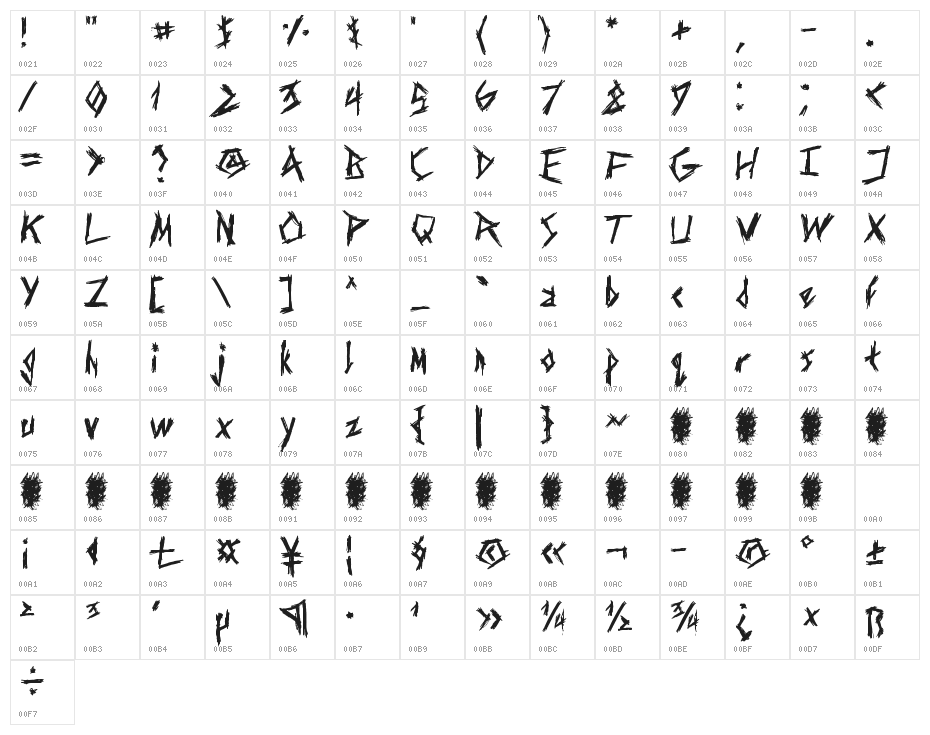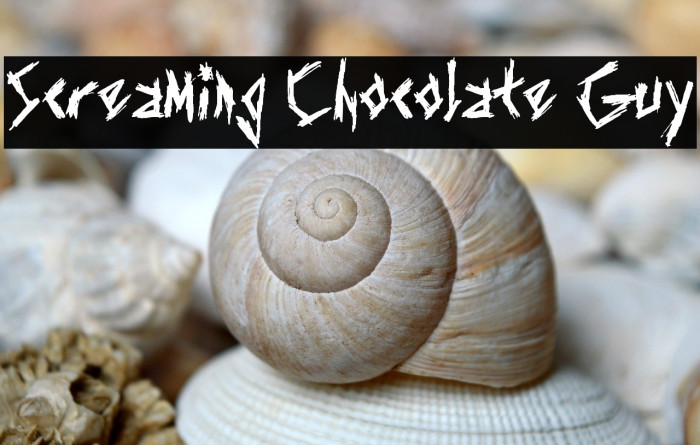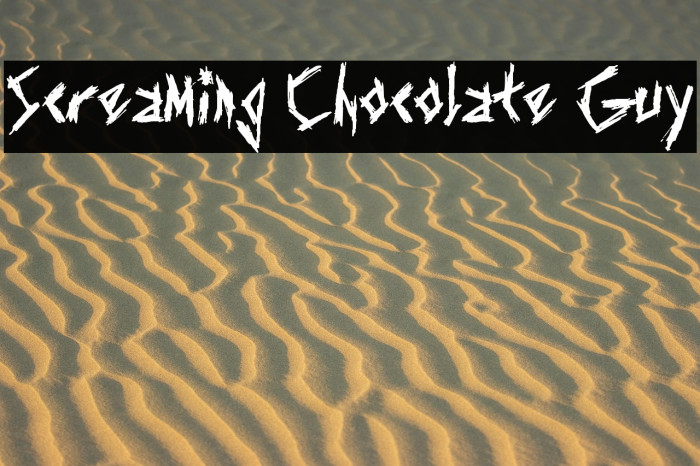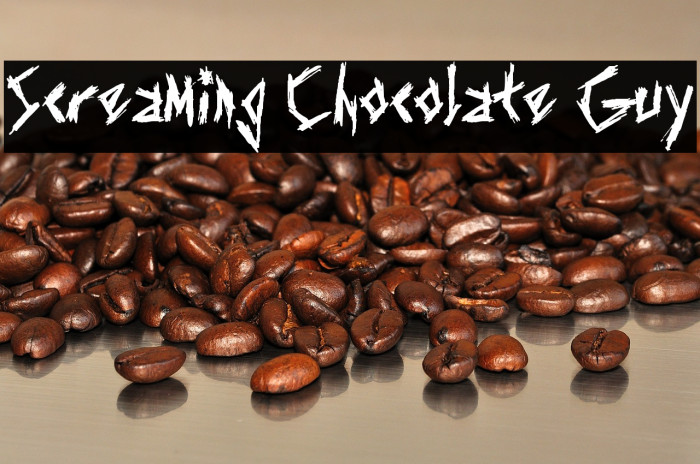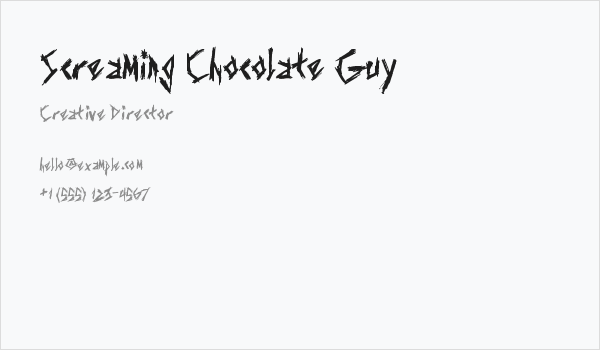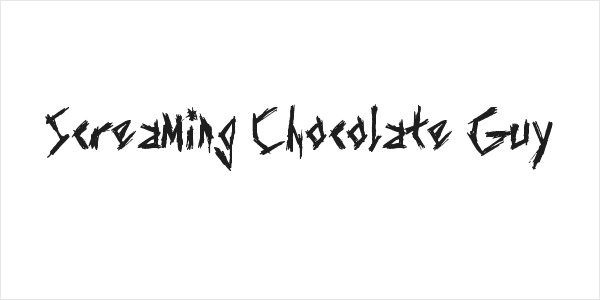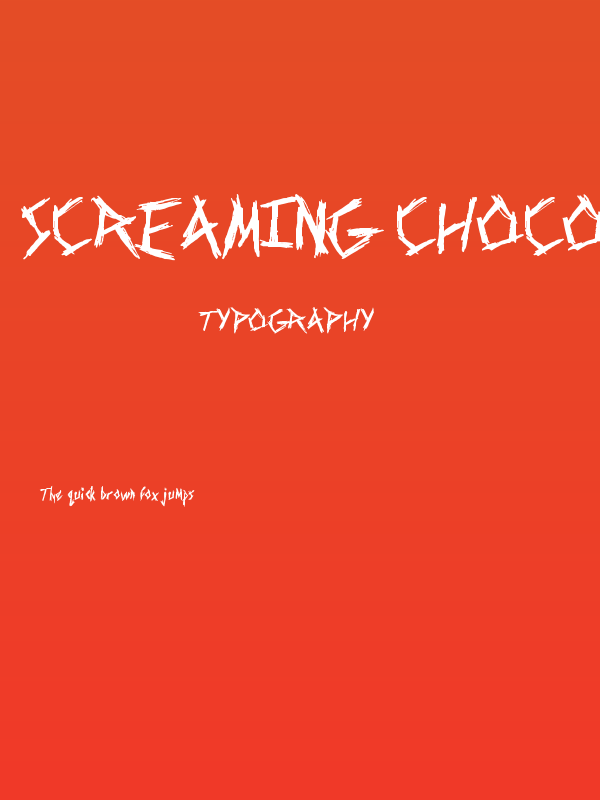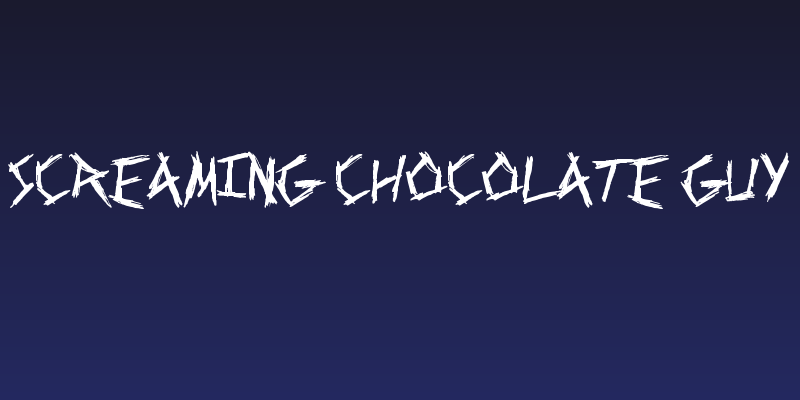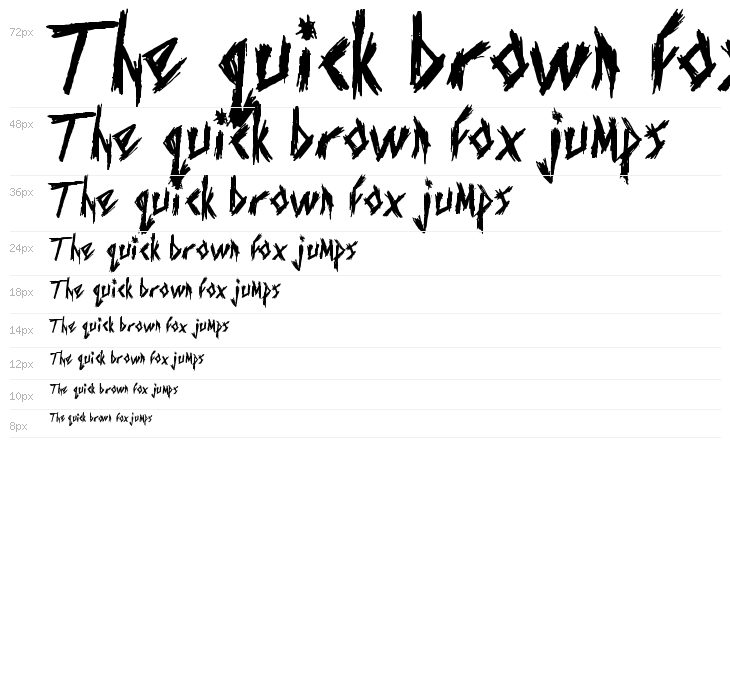
Screaming Chocolate Guy Font
Screaming Chocolate Guy Description
This font exudes a raw, energetic vibe with its jagged, hand-drawn appearance. Each character is uniquely crafted with sharp, irregular edges, giving it a chaotic yet artistic feel. The strokes are bold and uneven, creating a sense of urgency and intensity. This style is reminiscent of graffiti or distressed art, making it stand out with its rebellious and unconventional look. The uppercase and lowercase letters maintain a consistent style, while the numbers and special characters follow suit with the same rugged aesthetic. The overall design is bold and eye-catching, perfect for making a statement.
| Overall Style | Modern, Edgy |
| Proposed Projects | Ideal for album covers, street art designs, edgy posters, or any project needing a bold, artistic statement. |